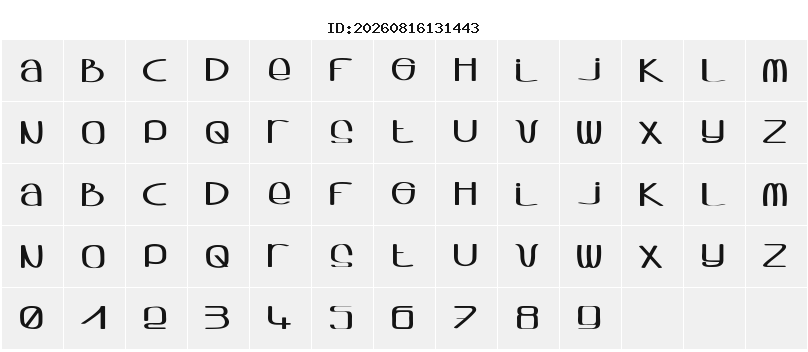
Sqwash Preview
• Font Name: Sqwash
• Full Font Name: Sqwash
• Designer: Heather Taylor
About Sqwash.otf
Sqwash.otf is a modern, elegant sans-serif font designed for ultimate readability and visual harmony. Perfect for branding, headlines, web design, and print materials.